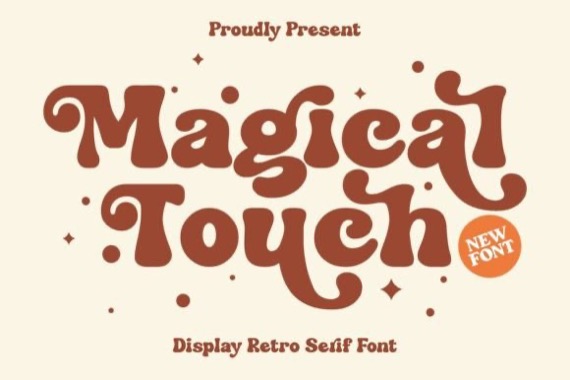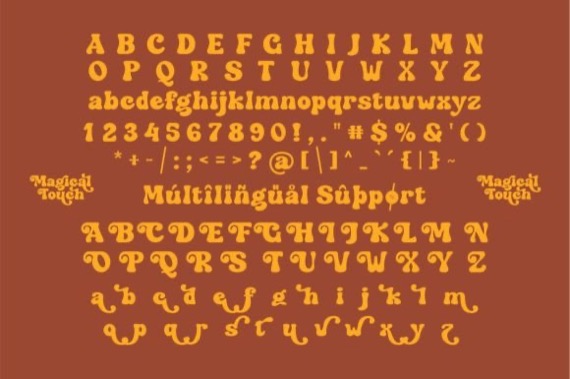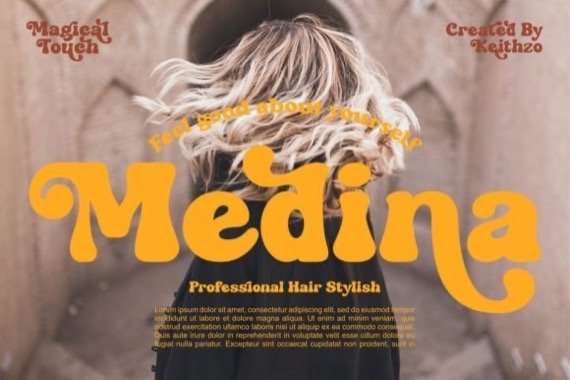
Proudly introducing a cool retro serif font that was created and shared by Keithzo (7NTypes), Magical Touch is an elegant and bold serif font. Fall in love with its incredibly versatile style and use it to create gorgeous wedding invitations, beautiful stationary art, eye-catching social media posts, and much more!
Magical Touch Serif Font